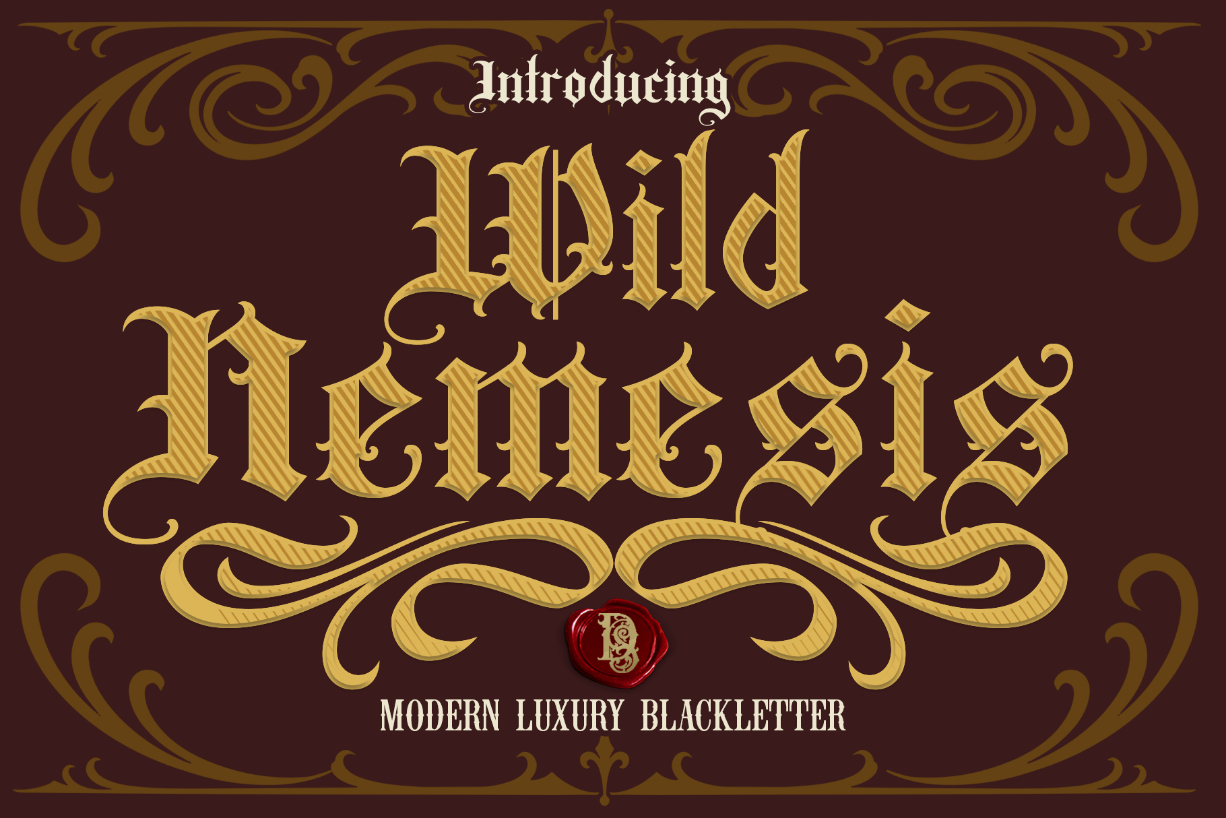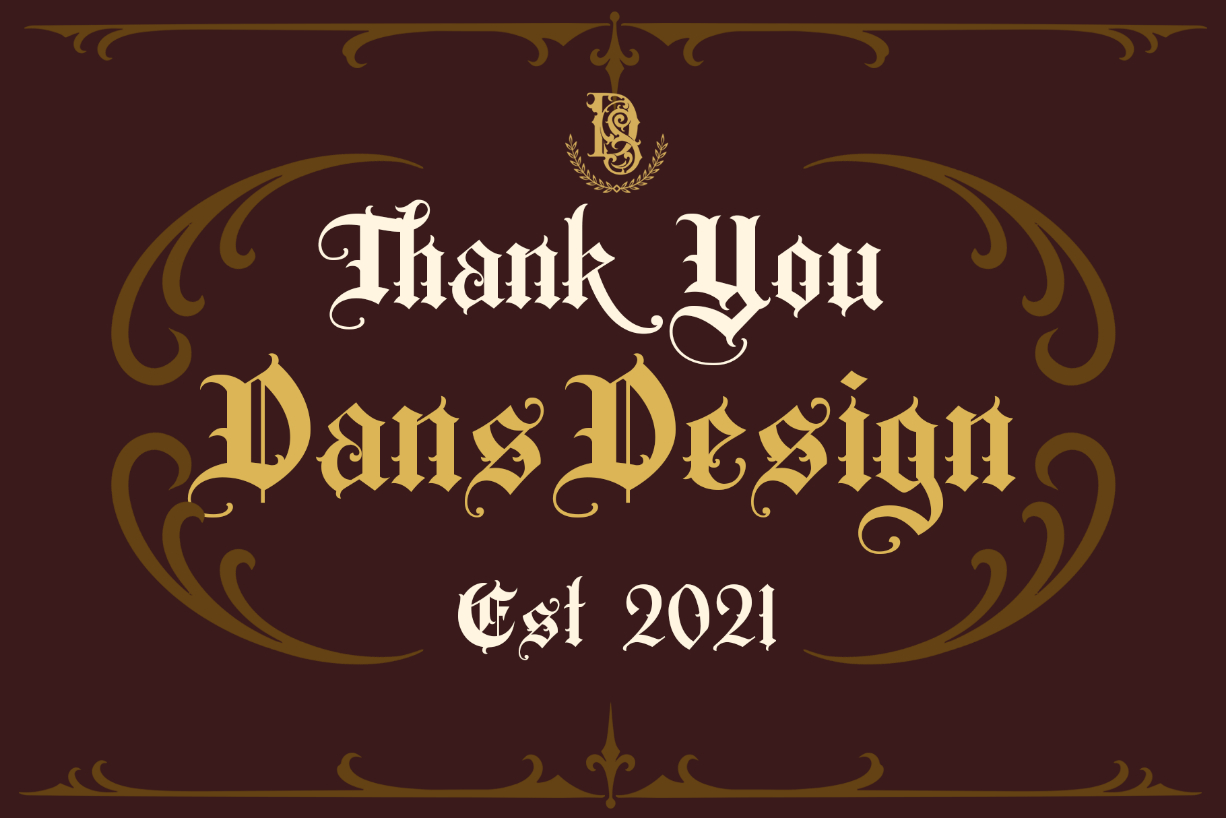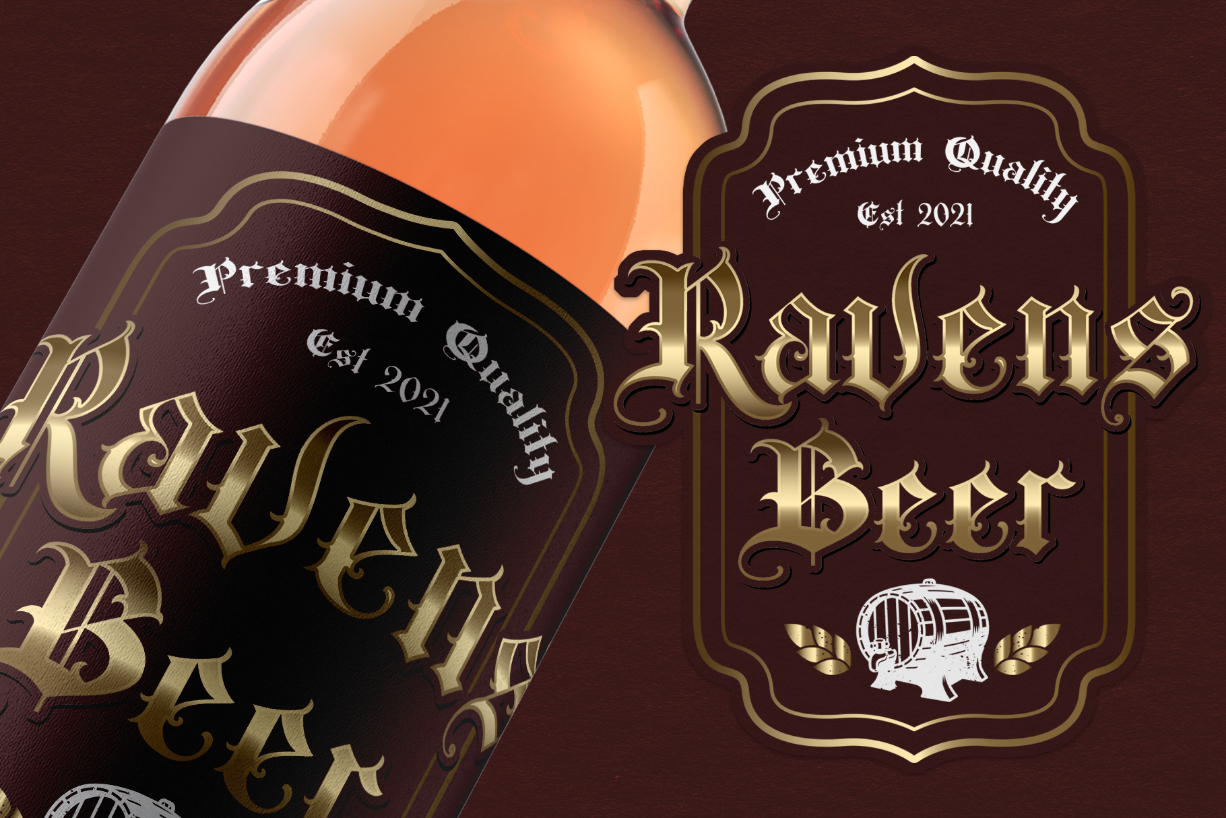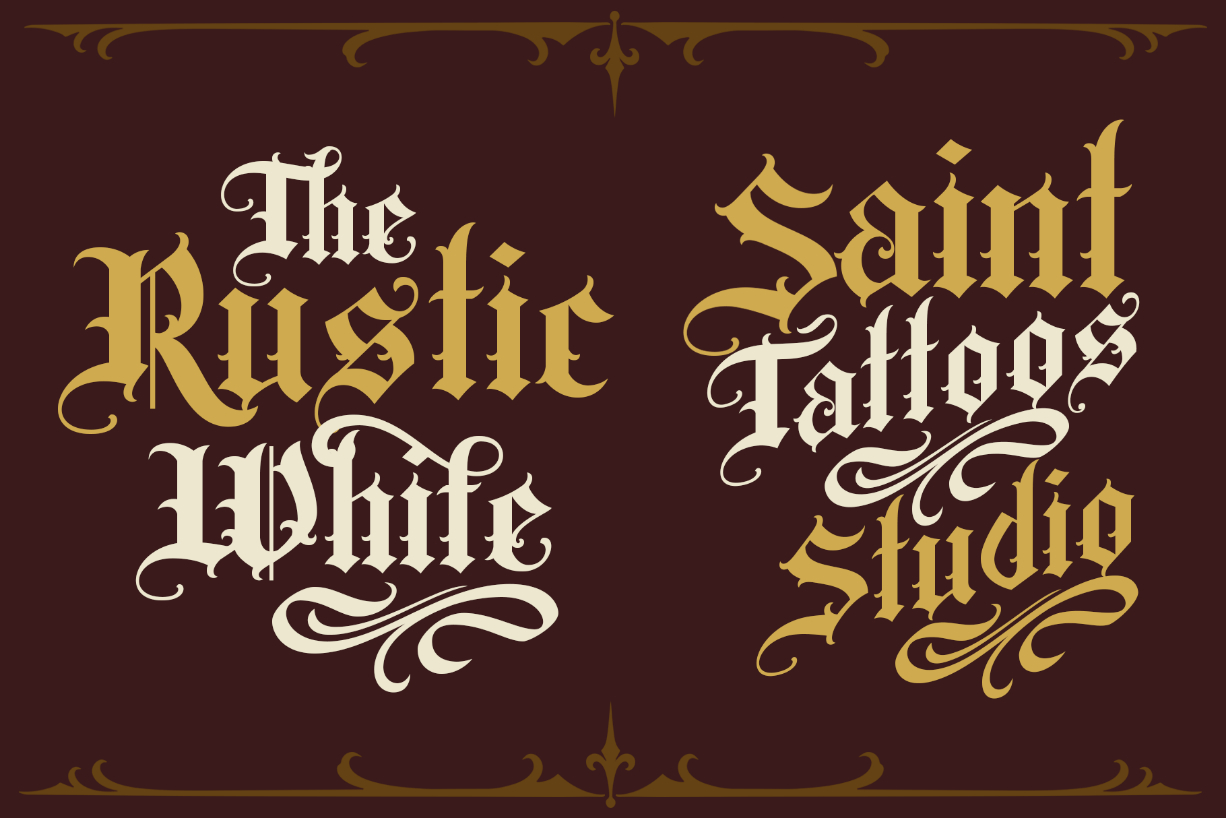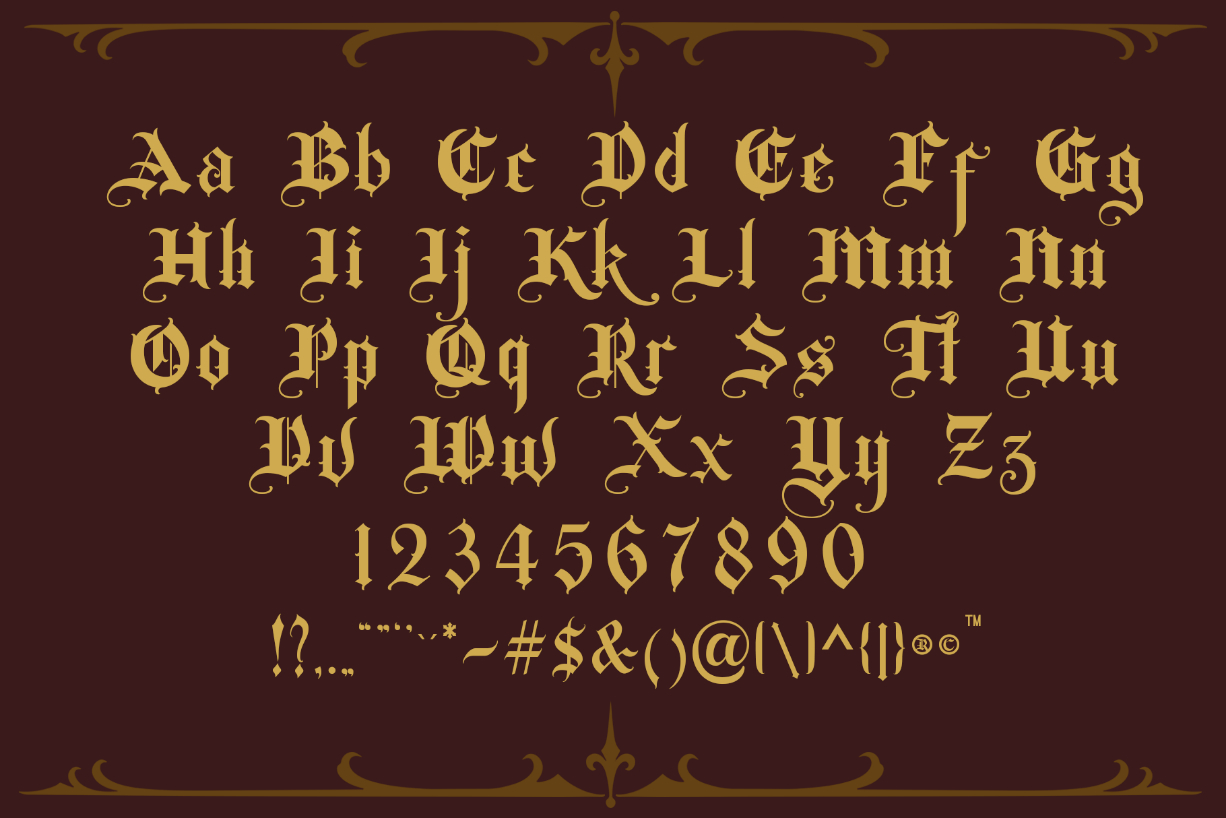
About Wild Nemesis Font
Wild Nemesis is a distinct, highly detailed, and chic blackletter font. It is suitable for projects that need spectacular typography, such as product packaging, exquisite marketing campaigns, labels, or more.